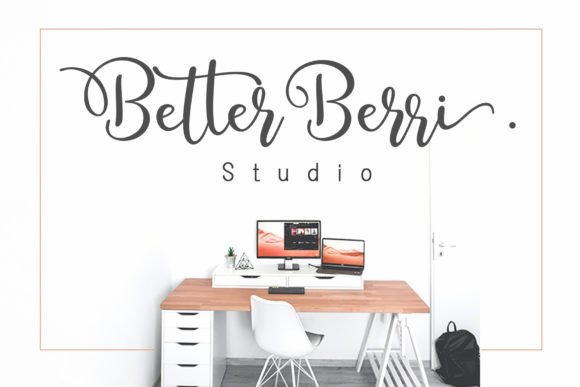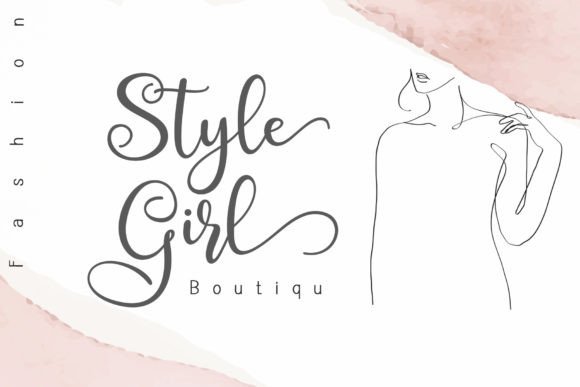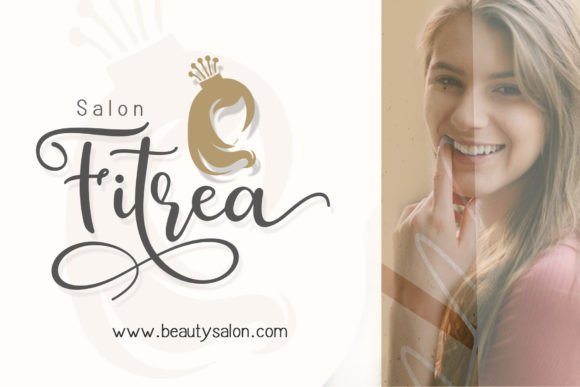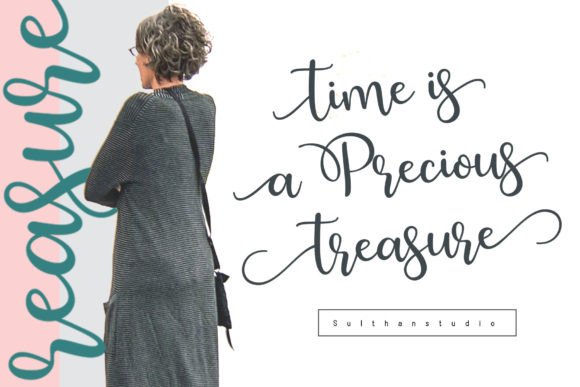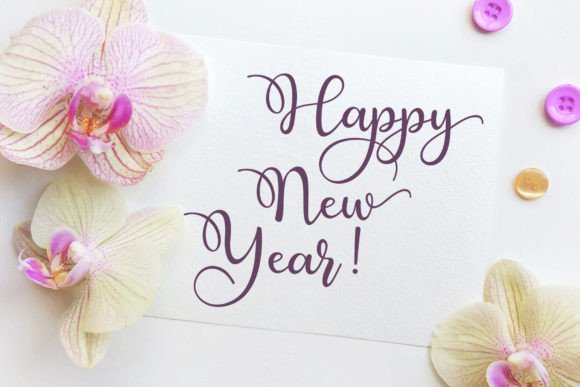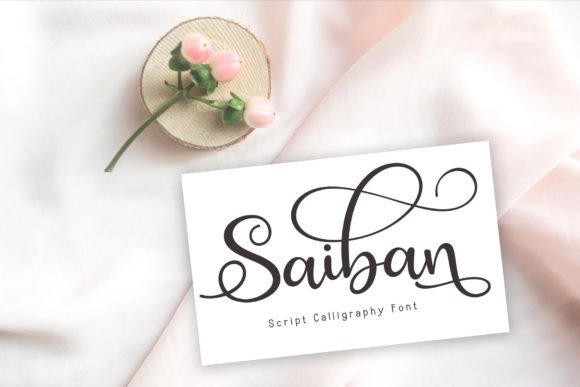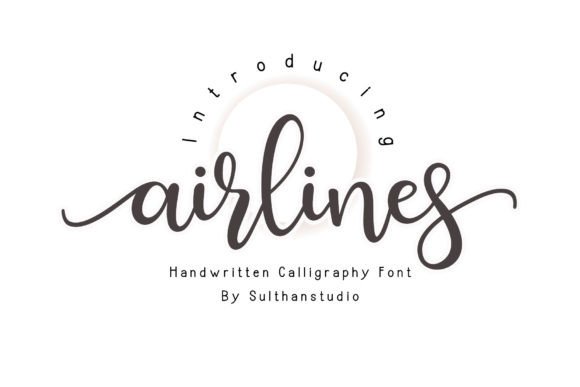
Discover the Elegance of Airlines Font: A Comprehensive Guide
Are you a designer or crafter looking for a unique and versatile font to elevate your creative projects? Look no further than the Airlines Font, an elegant hand-made font that is sure to impress. With its numerous options, alternatives, swashes, and ligatures, this font offers endless possibilities for customization and creativity.
What Makes Airlines Font So Special?
This stunning font is meticulously crafted to provide a touch of sophistication and elegance to any design project. Whether you’re working on a logo, branding, packaging, or marketing materials, Airlines Font is the perfect choice. Its hand-made nature ensures a level of uniqueness and personality that is hard to find in standard fonts.
Key Features of Airlines Font
- Multiple Options and Alternatives: With Airlines Font, you get a wide range of options and alternatives to choose from. This means you can experiment with different styles and variations to find the perfect fit for your project.
- Swashes and Ligatures: The font comes with an impressive collection of swashes and ligatures, allowing you to add a touch of flair and personality to your designs. These decorative elements can be used to create stunning titles, headings, and text arrangements.
Airlines Font offers numerous benefits for designers and crafters, including:
- Versatility: With its multiple options, alternatives, swashes, and ligatures, Airlines Font can be used for a wide range of projects, from elegant branding to creative crafts.
Use Cases for Airlines Font
Airlines Font is suitable for a variety of design projects, including:
- Logo Design: Create a lasting impression with a custom logo that showcases your brand’s personality and style.
- Branding and Identity: Develop a cohesive brand identity with Airlines Font, perfect for business cards, letterheads, and packaging.
- Marketing Materials: Elevate your marketing materials, such as brochures, flyers, and posters, with the font’s elegant and sophisticated look.
- Crafts and DIY Projects: Add a touch of elegance to your craft projects, such as handmade cards, invitations, and scrapbooking.
Tips and Tricks for Getting the Most Out of Airlines Font
To maximize the potential of Airlines Font, keep the following tips in mind:
- Experiment with Different Options: Don’t be afraid to try out different options and alternatives to find the perfect fit for your project.
- Mix and Match Swashes and Ligatures: Combine swashes and ligatures to create unique and eye-catching text arrangements.
- Pay Attention to Kerning and Spacing: Adjust the kerning and spacing to ensure your text looks polished and professional.
Airlines Font is an exceptional hand-made font that offers a world of creative possibilities for designers and crafters. With its PUA encoding, multiple options and alternatives, swashes, and ligatures, this font is sure to become a staple in your design arsenal. Whether you’re working on a professional project or a personal craft, Airlines Font is the perfect choice for adding a touch of elegance and sophistication.